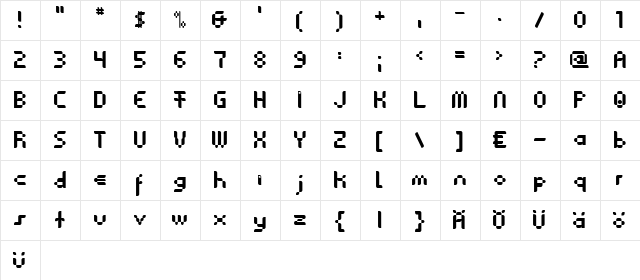
Anasthesia Regular
Design Context for Anasthesia Typeface
Anasthesia is a composed and adaptable typeface that performs quietly and consistently across a wide range of design contexts.